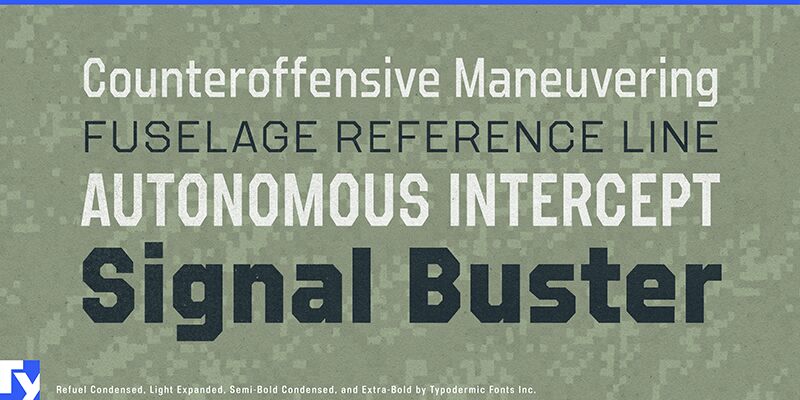
Refuel is a modern geometric sans serif inspired by mid-century aviation lettering. Its octagonal framework gives the design a clean, purposeful structure that feels both technical and confident. Compact proportions and crisp geometry make it well suited to interfaces, packaging, sports branding, and signage where clarity and impact matter. Small detailslike distinct forms for easily confused characterskeep it readable in dense settings, giving Refuel a precise, engineered voice across modern design work.